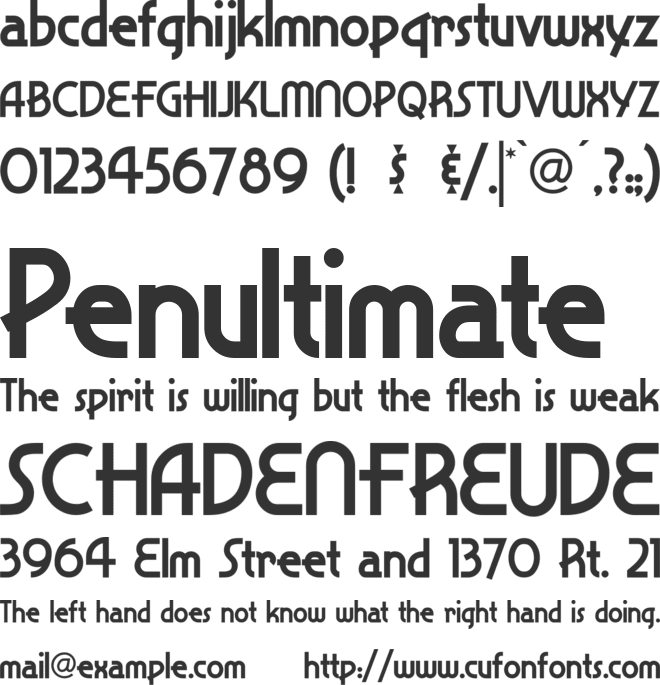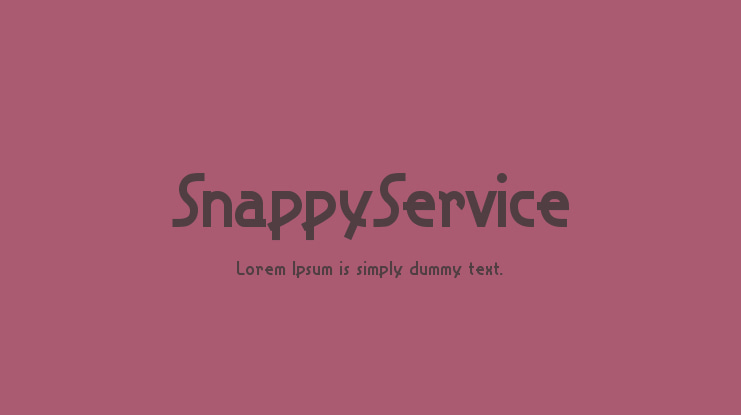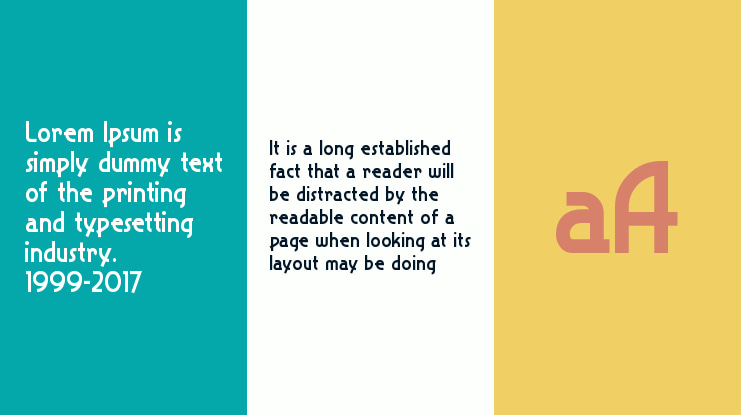
SnappyService Font
In the olden days B.C. (before cholesterol), there was a barbeque stand in East Dallas called Snappy Service BBQ. The cook called his sauce “rich,” which really meant that it was swimming with grease. Mmmmm-good! Anyhow, times, tastes and LDL levels change: the BBQ joint isn’t there anymore, but its sign lettering lives on.